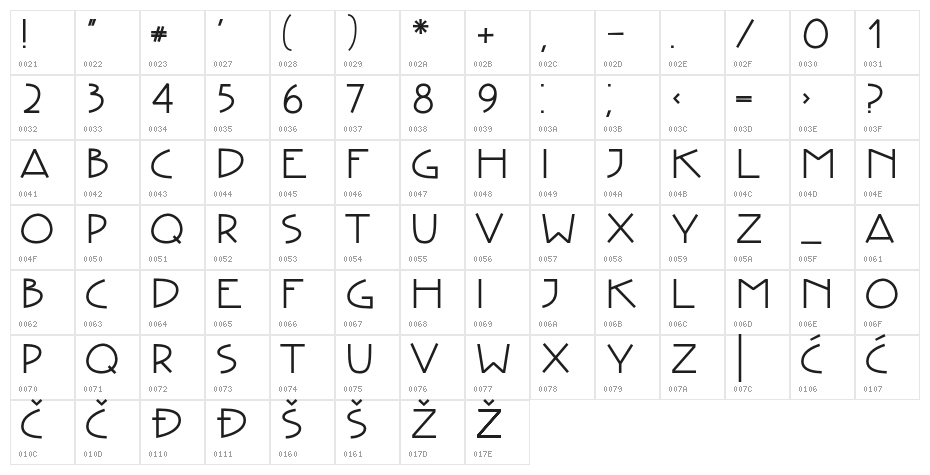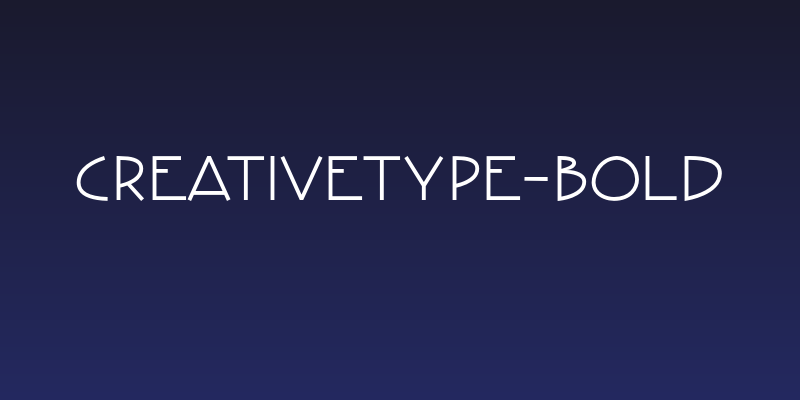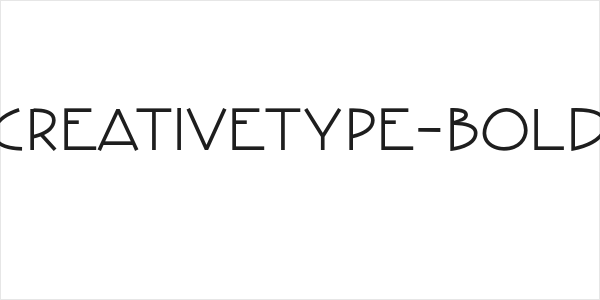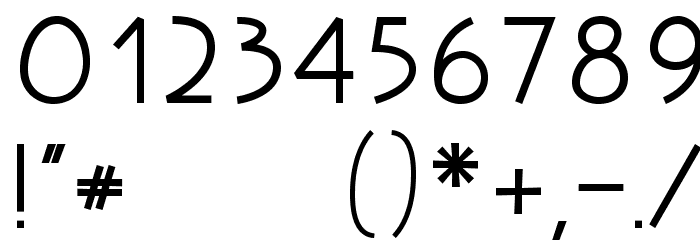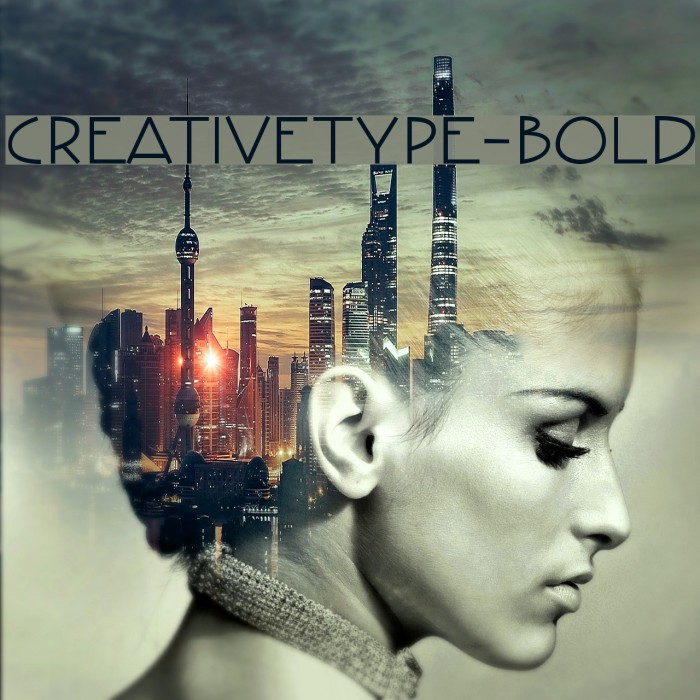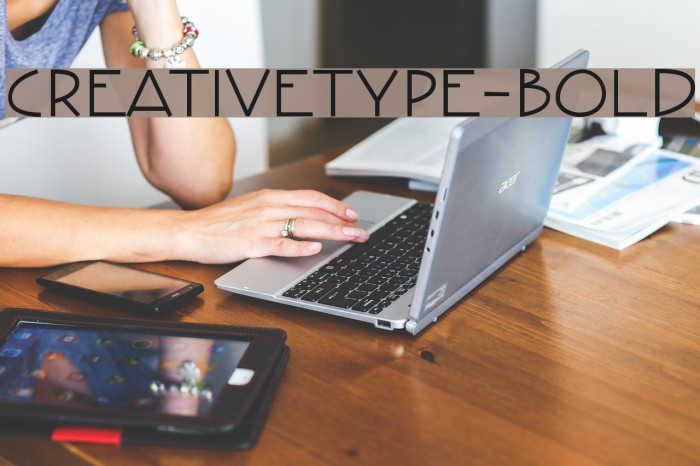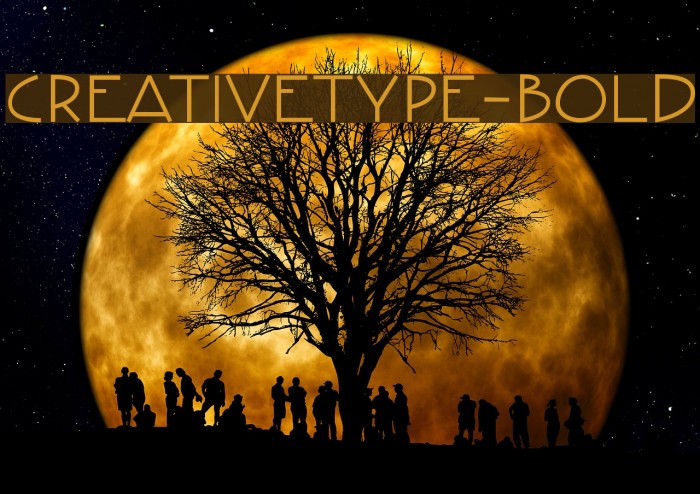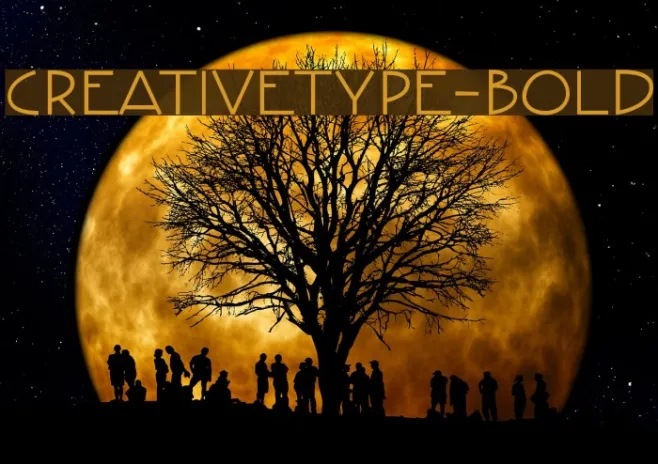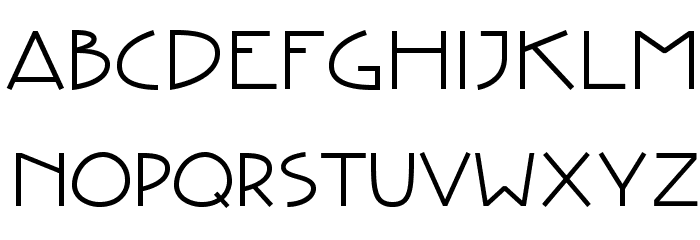
CreativeType-Bold Font
CreativeType-Bold Description
This font features a modern and sleek design with clean lines and geometric shapes. The characters are well-balanced, offering a contemporary feel that is both stylish and functional. The uppercase letters are bold and assertive, while the lowercase letters maintain a consistent flow, making it suitable for various design applications. The numerals are clear and distinct, ensuring readability. Special characters are included, adding versatility to the font's use. The overall appearance is professional and polished, ideal for projects that require a modern touch.
| Proposed Projects | Ideal for branding, advertising, digital media, and editorial design. |